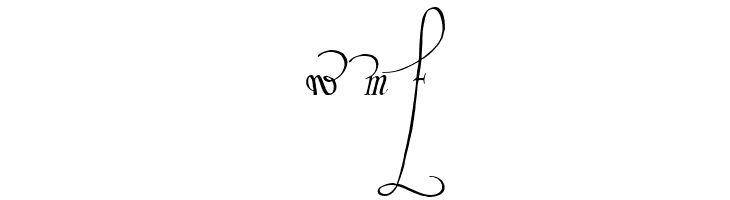
( Fonts by Diogene - Claude Pelletier )
An elegant and artistic font with decorative swirls and embellishments.
( Fonts by Fonthead Design - www.fonthead.com )
An ornate, calligraphy-inspired font with intricate detailing and a classic yet modern appeal.
A pictorial font composed of dolphin-themed illustrations.
( Fonts by Altsys Metamorphosis )
Clean, geometric sans-serif font with high legibility.
( Fonts by The Scriptorium - Dave Nalle )
An elegant script font with flowing, interconnected letters and ornate uppercase characters.
( Fonts by www.aenigmafonts.com )
An ornate, gothic-style font with claw-like extensions and intricate detailing.
( Fonts by uatype.faithweb.com - UnAuthorized Type )
A decorative symbol font with diverse Christian cross designs.
Ornate fantasy-themed pictorial font with mythical creatures.
An ornate and decorative font with elaborate flourishes and artistic letterforms.
( Fonts by David Rakowski )
An ornate, decorative font with intricate floral designs within square frames.
( Fonts by Digital Graphics Labs - www.digitalgraphiclabs.com )
An elegant script font with flowing, cursive characters and intricate flourishes.
( Fonts by David Rakowski )
A decorative font with intricate, swirling patterns and high contrast strokes.
( Fonts by Peter S. Baker )
A decorative font with historical charm and intricate details.
( Fonts by The Scriptorium - Dave Nalle )
An artistic font with gothic influences and dramatic serifs.
( Fonts by The Scriptorium - Dave Nalle )
An intricate and decorative script font with elegant swirls and loops.
A decorative and intricate font with bold, embellished characters.
( Fonts by The Scriptorium - Dave Nalle )
A bold, pirate-themed font with sharp serifs and a distressed appearance.
A festive decorative font featuring whimsical Santa Claus illustrations.
( Fonts by Paul Lloyd )
An elegant, condensed script font with ornate uppercase letters.